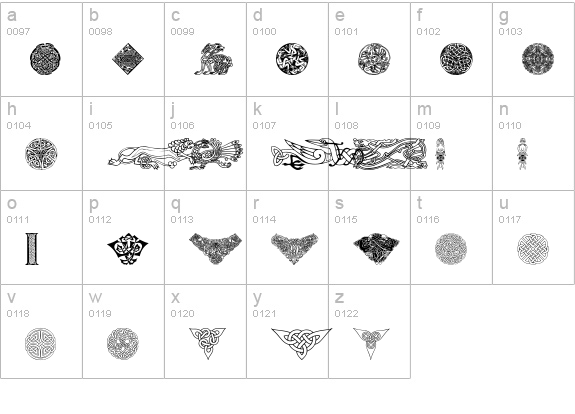
Celtic Elements II Font Details
Introducing Celtic Elements II, a captivating and intricate font inspired by traditional Celtic designs. This unique font features ornate swirls and elegant curves that evoke a sense of ancient craftsmanship and mystique. Perfect for adding a touch of Celtic charm to your projects, whether it be invitations, posters, or branding materials. What sets Celtic Elements II apart is its intricate detailing and versatile usage. From headlines to body text, this font is sure to make a statement and leave a lasting impression. With its timeless appeal and rich history, Celtic Elements II is a must-have for anyone looking to infuse their designs with a touch of Celtic heritage. Best of all, Celtic Elements II is available for free download at FontsMarket.com. So why wait? Add this stunning font to your collection today and let the magic of Celtic design elevate your creative projects to new heights.